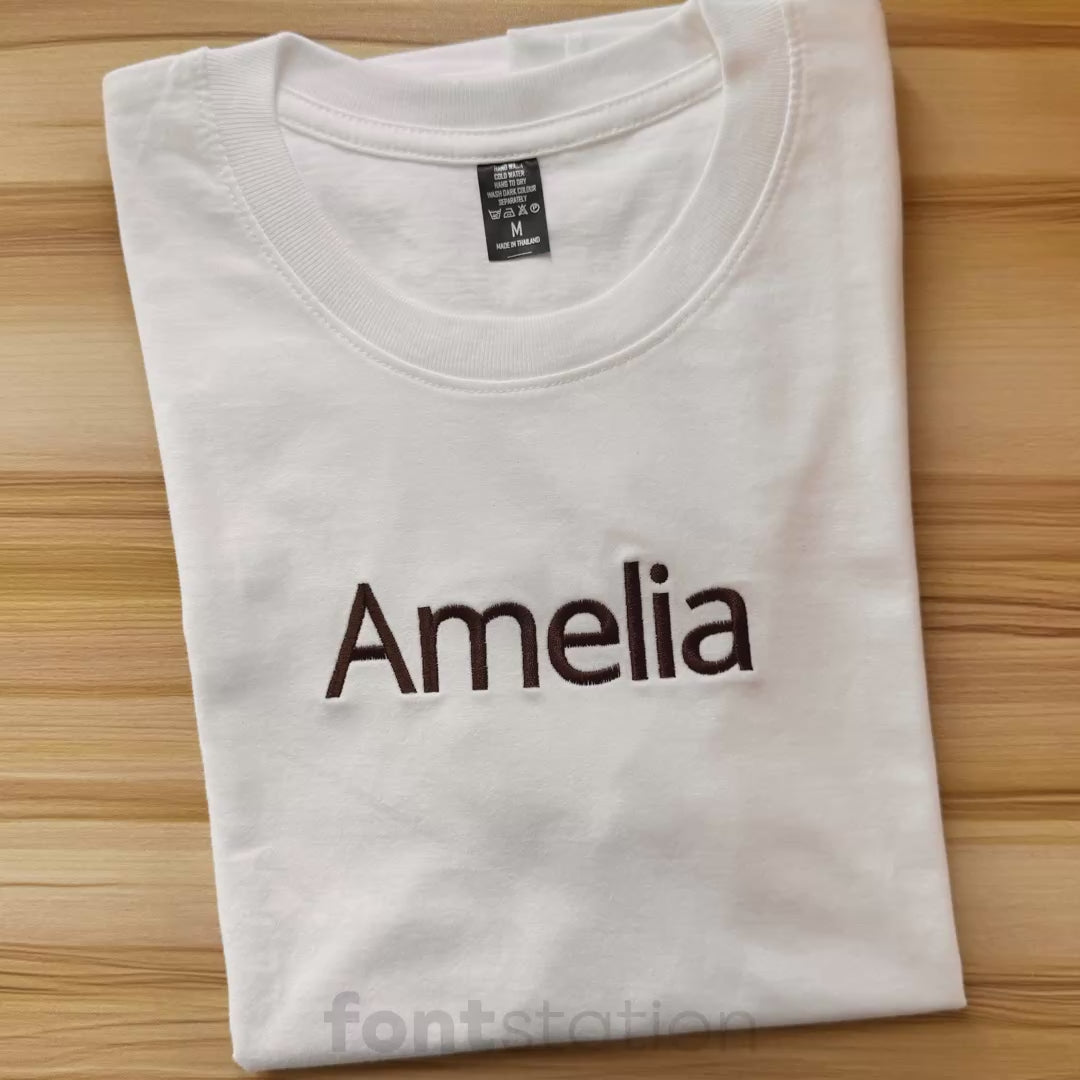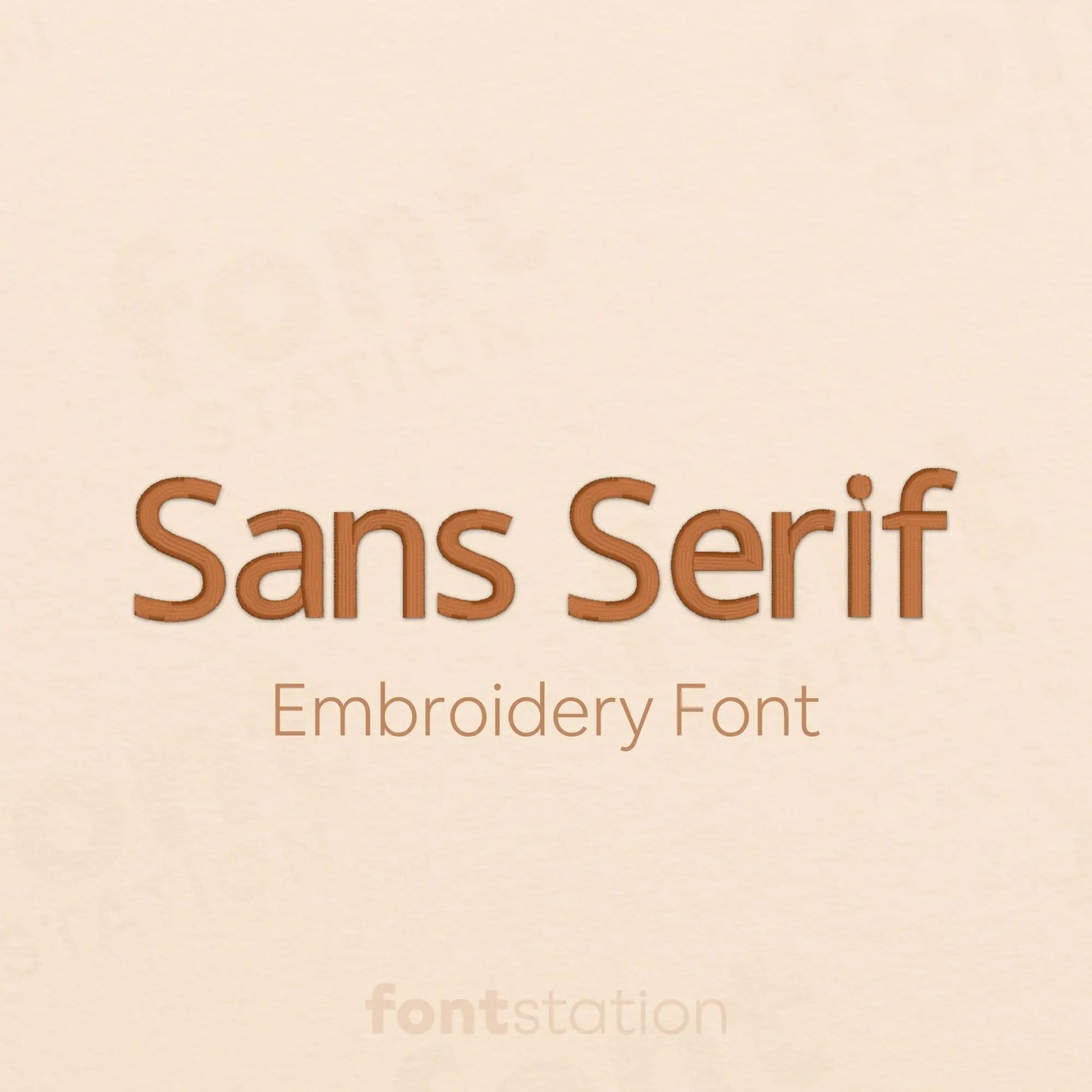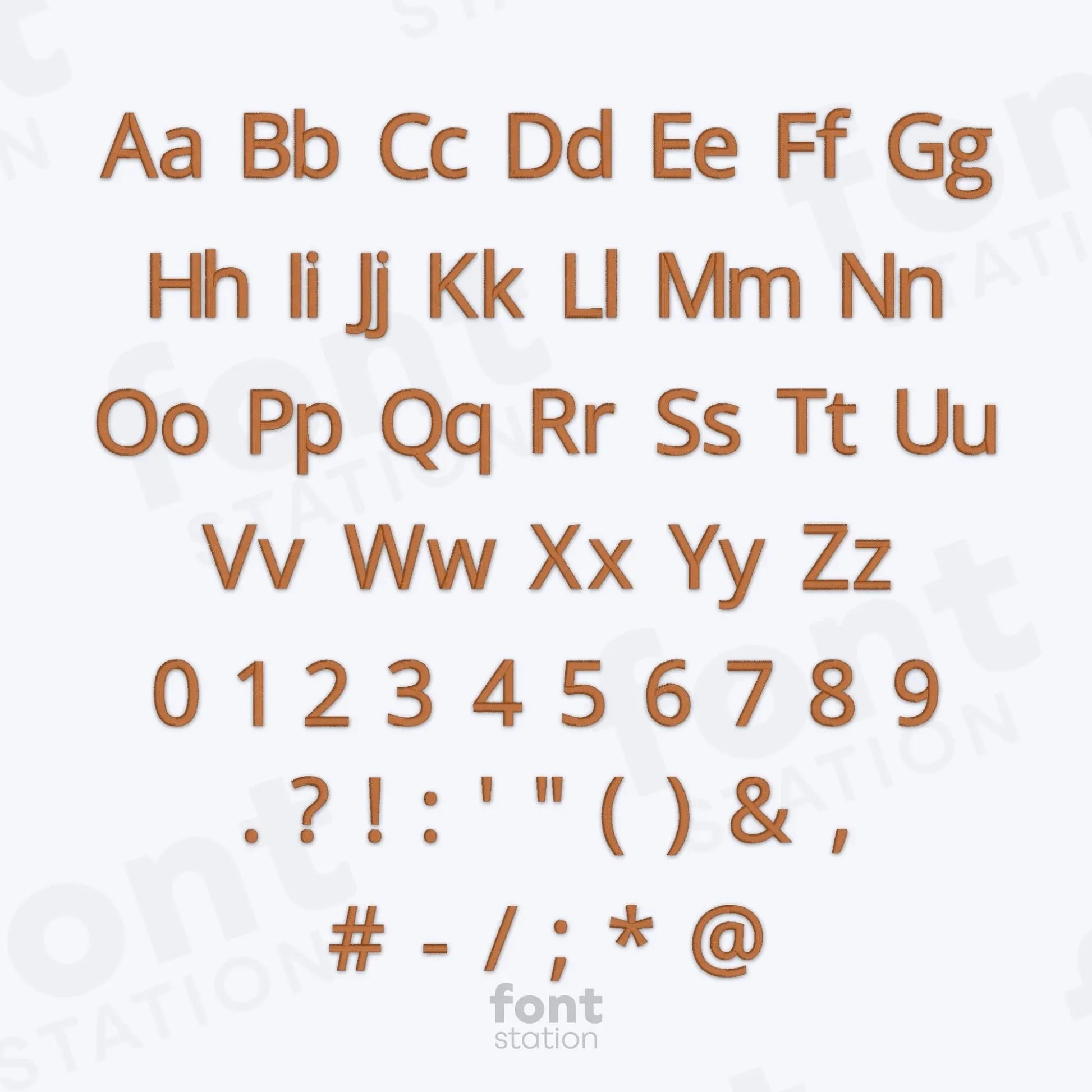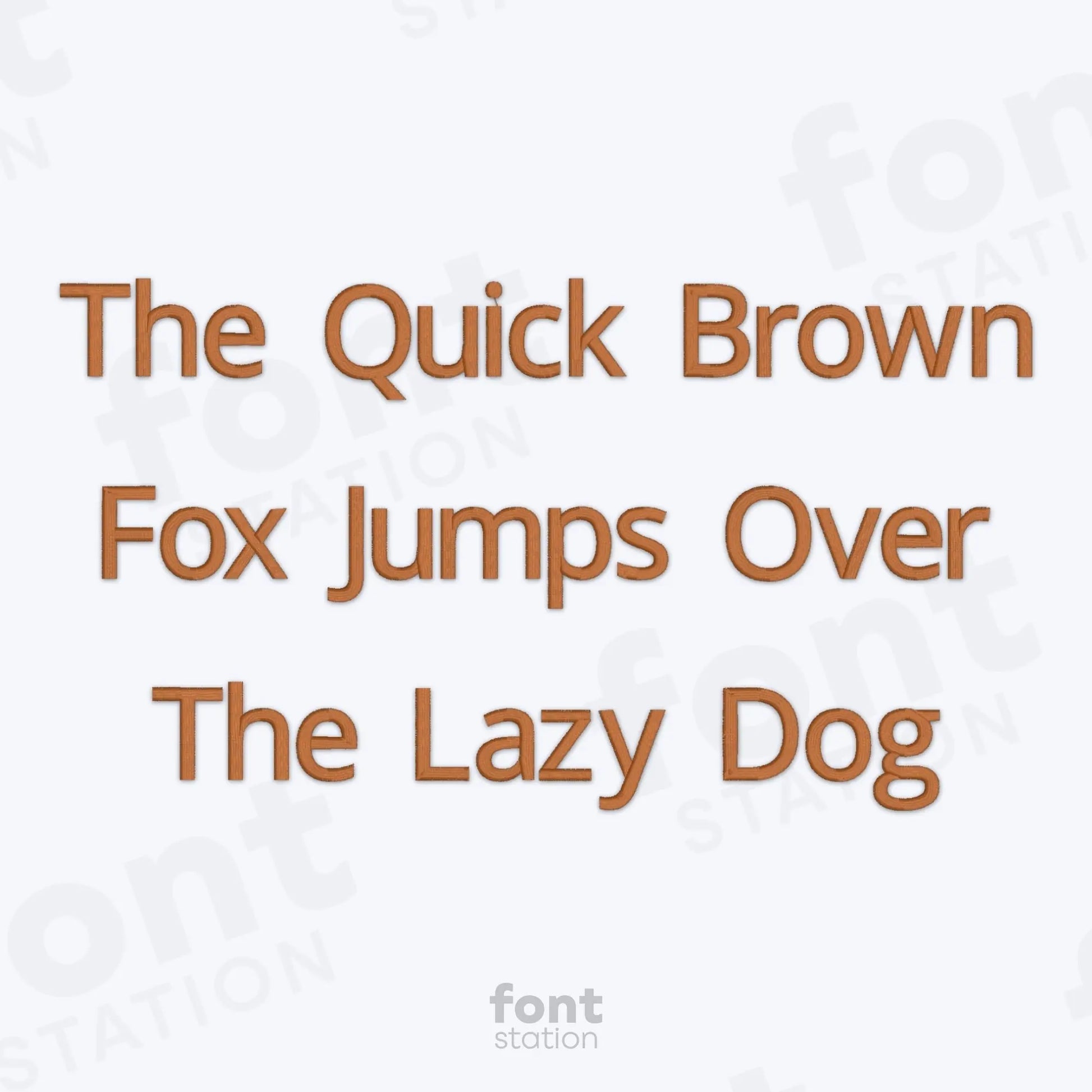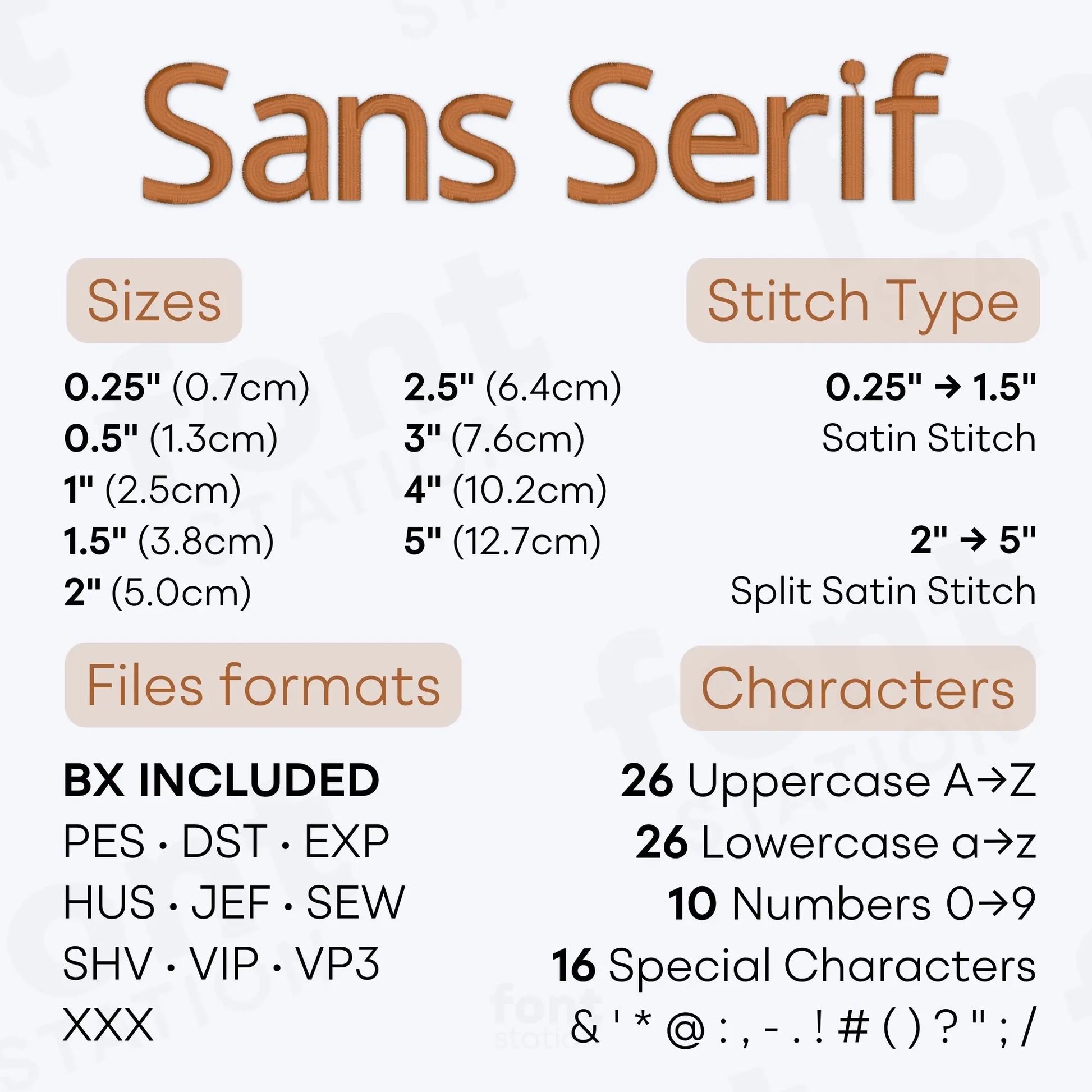
Sans Serif Embroidery Font
Introducing our Sans Serif embroidery font, a classic alphabet with clean letters that stitch beautifully in small and large sizes. Ready for your embroidery machine, it's perfect for every project and helps you create timeless, professional designs with every stitch.
About the Sans Serif Embroidery Font
Satin Stitch: 0.25", 0.5", 1", 1.5", 2", 2.5", 3", 4" et 5"
Characters: 26 uppercase, 26 lowercase, 10 numbers et symbols & ' * @ : , - . ! # ( ) ? " ; /
Our Sans Serif embroidery font brings a clean, classic style to your embroidery projects.
This versatile machine embroidery font features a timeless alphabet with simple, highly readable letters that stitch beautifully in both small and large sizes. Perfect for names, monograms, business logos, uniforms, gifts, and everyday embroidery designs, it delivers a professional finish for every project.